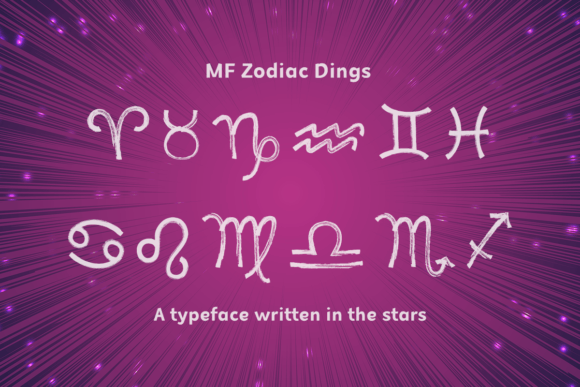
Journey into the cosmos with Mf Zodiac Dings, the celestial dingbats font that captures the essence of the stars and unravels the mysteries of the zodiac. Embark on a cosmic adventure as you explore the 48 hand-drawn versions of the 12 astrological signs, each meticulously crafted to radiate celestial charm. Unleash your creativity and let your imagination soar as you delve into the boundless possibilities of this enchanting font.
With Mf Zodiac Dings, you can:
- Cast spells of creativity and weave tales of enchantment in your astrology websites, captivating your audience with the allure of the cosmos.
- Transform your books into celestial masterpieces, infusing every page with cosmic energy and leaving readers starstruck.
- Design products that shimmer with astral beauty, captivating customers with the allure of the zodiac and leaving them under the spell of your celestial designs.
- Elevate your sublimation projects to new heights, creating awe-inspiring designs that transport your customers to a realm of cosmic wonders.
Mf Zodiac Dings is more than just a font; it's a gateway to a world where imagination knows no bounds. Its versatility extends beyond the stars, allowing you to weave its magic into a symphony of creative endeavors:
- Craft captivating logos that radiate cosmic energy, leaving a lasting impression on your audience.
- Design social media posts that sparkle with celestial charm, engaging your followers and leaving them captivated by your cosmic creations.
- Create eye-catching business cards that leave a trail of stardust wherever you go, ensuring that your brand shines brighter than the North Star.
Immerse yourself in the cosmic beauty of Mf Zodiac Dings and let your creativity flourish under the celestial canopy. Embrace the enchantment of the stars and weave your own tapestry of cosmic wonders.